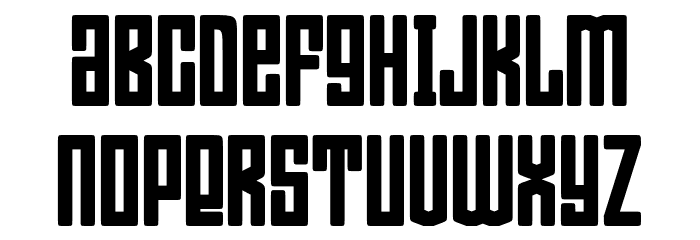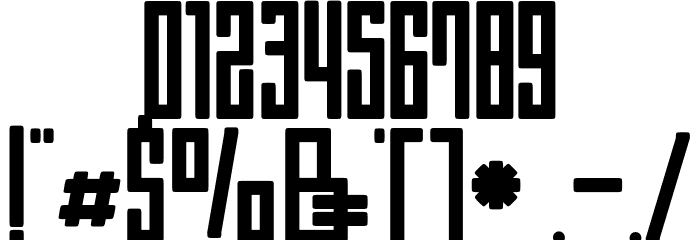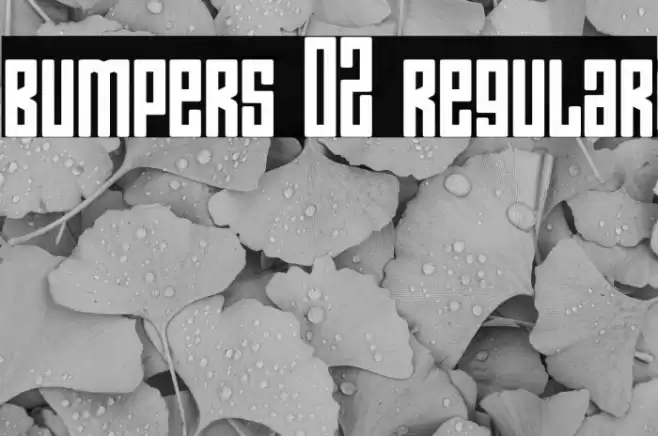
Bumpers 02 Regular Font
This font features a bold, geometric design with a strong presence. The characters are blocky and uniform, with a modern and industrial feel. The uppercase and lowercase letters maintain a consistent height, giving the font a monospaced appearance. The numbers and special characters follow the same design principles, ensuring a cohesive look across all elements. The thick strokes and minimal contrast make it highly legible, even at smaller sizes. This font is ideal for projects that require a bold statement, such as posters, headlines, or branding materials.
- Font: Bumpers 02 Regular
- Proposed Projects: Ideal for posters, headlines, branding, and any project needing a strong, modern look.